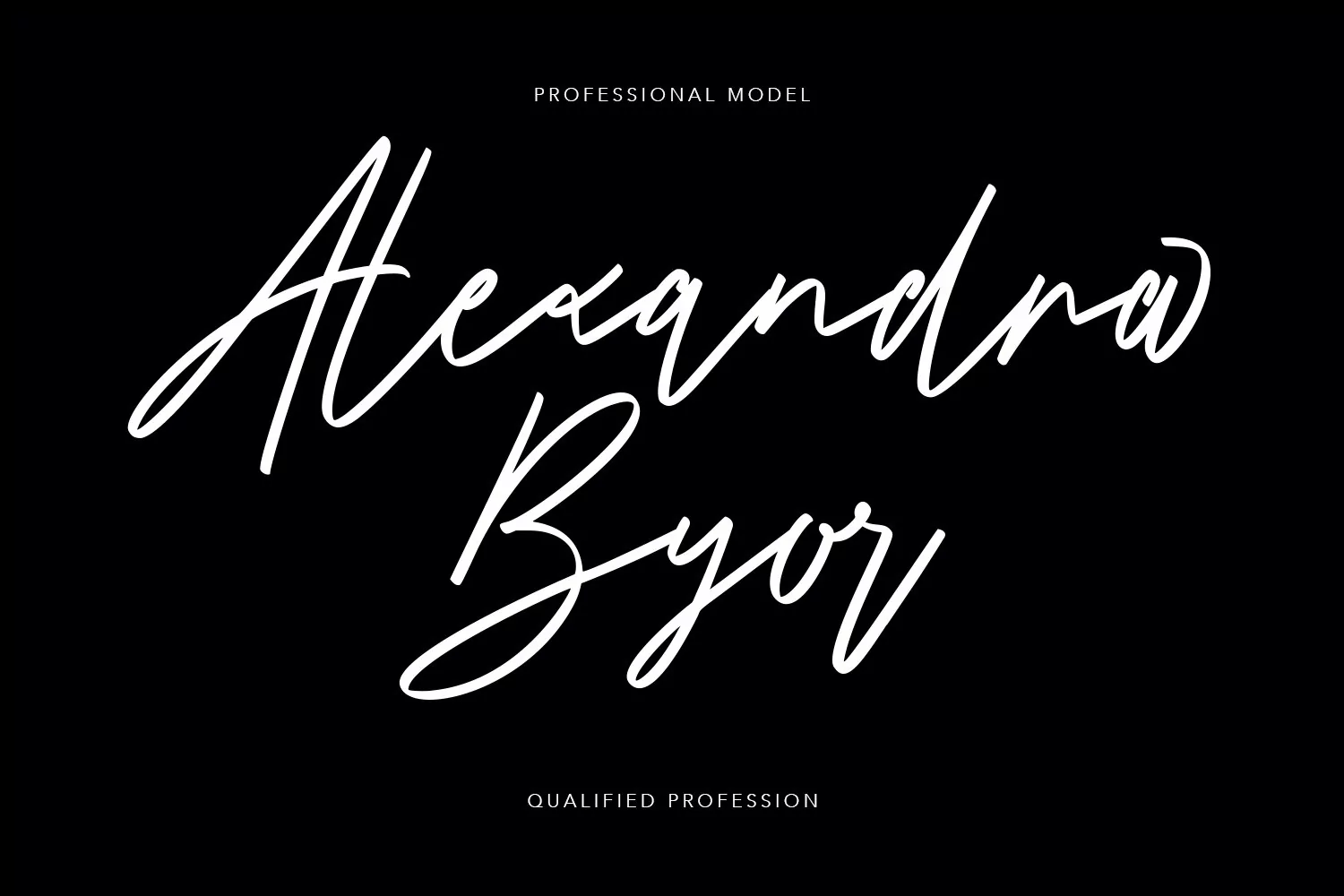
Give your designs an authentic handcrafted feel. "Boutique Kamilla Signature Typeface" is perfectly suited to signature, stationery, logo, typography quotes, magazine or book cover, website header, clothing, branding, packaging design and more.